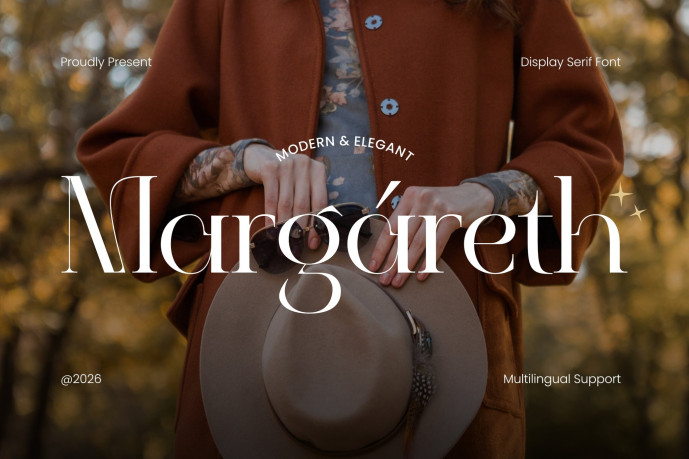
Margareth Serif Font
Margareth Serif Font is a refined high-contrast display typeface created for beauty branding, fashion campaigns, and sophisticated editorial layouts. With graceful curves, delicate serif details, and balanced proportions, this typeface delivers a polished visual identity that feels modern, feminine, and confidently expressive.
Its soft curves meet sharp terminals to create strong visual contrast, making every headline feel intentional and memorable. Designed for skincare packaging, cosmetic labels, magazine covers, social media branding, and boutique product presentation, MARGARETH helps designers build elegant visuals with clarity and style. With multilingual support for 67 languages, this typeface also allows brands to communicate consistently across international markets while maintaining a strong visual signature.
When your project needs sophistication with strong visual presence, MARGARETH delivers clean editorial impact. It works beautifully for branding, posters, packaging, social media campaigns, product launches, and magazine headlines where refined typography shapes first impressions. Whether you are creating skincare branding, fashion editorials, cosmetic packaging, perfume labels, or feminine business identities, this typeface helps you communicate confidence, elegance, and trust through every letterform.